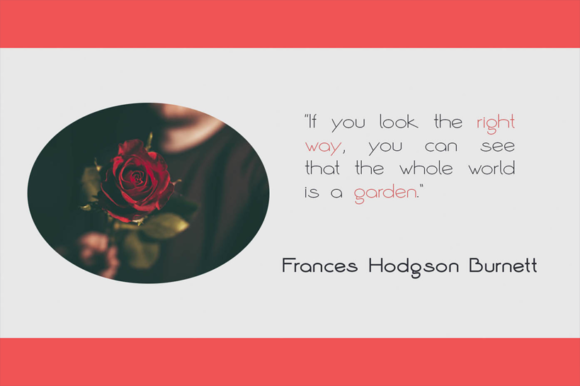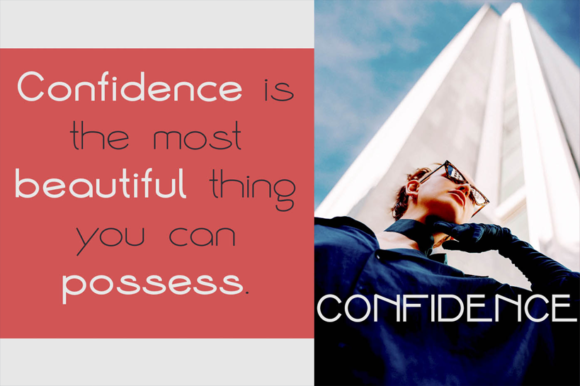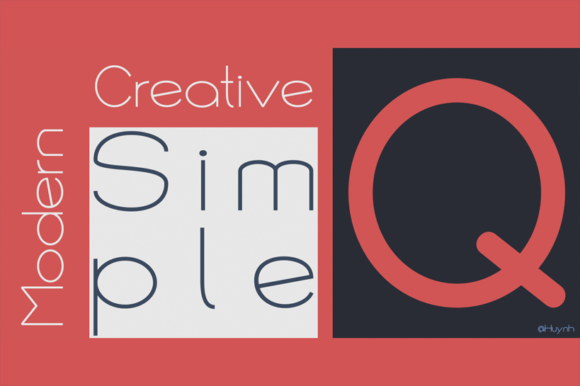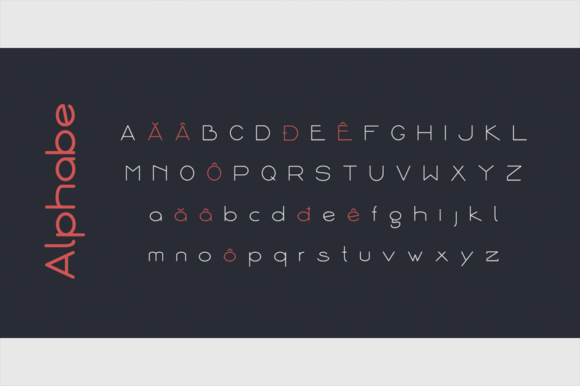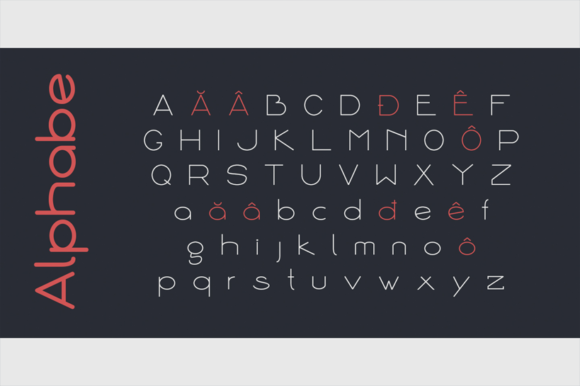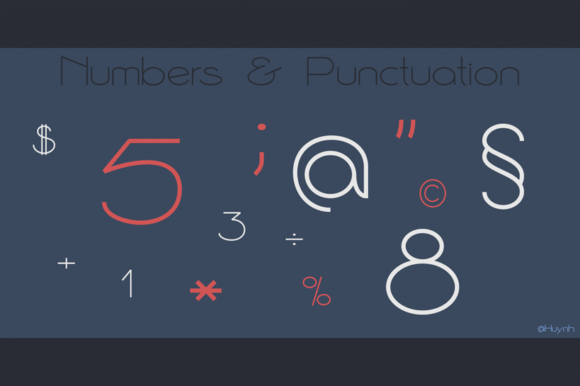
Introduction to Ovalime Font
Have you ever been in the middle of a creative project, staring at a blank page, and suddenly you stumble upon the perfect design element that brings everything together? For designers, finding the right font can be the difference between a mediocre design and a truly stunning one. That’s why we’re excited to introduce you to the Ovalime Font, a modern and simple sans serif font that’s about to become your new go-to design resource.
The Ovalime Font is a high-quality design element that can be easily matched to an incredibly large set of projects. Whether you’re working on a digital design project with a transparent background or creating a print material, Ovalime Font is the perfect addition to make your design stand out. And the best part? It’s available for free download, making it an invaluable asset for designers of all levels.
Ovalime Font
- Unique, creative design for various projects, including logos, icons, and graphics.
- Comes with a transparent background, making it easy to integrate into different design elements.
- Includes a comprehensive character set, covering Latin and Cyrillic alphabets, as well as punctuation and symbols.
- Perfect for designers and artists looking for a versatile and stylish design resource for their creative projects.
Honest Review: Ovalime Font
I recently stumbled upon the Ovalime Font while working on a creative project that required a unique and eye-catching typography. As a designer, I’m always on the lookout for high-quality design resources that can elevate my work. The Ovalime Font is a free download that has quickly become one of my go-to fonts.
- ✨ Unique and modern design aesthetic that adds a touch of sophistication to any creative project.
- ✨ Supports both light and dark modes, making it versatile for a variety of design applications.
- ✨ Works well with transparent backgrounds, allowing for seamless integration into designs that require a subtle touch.
However, I do have a few reservations about the Ovalime Font:
- Limitations:
- ⚠️ Limited character set, which may not be suitable for projects that require extensive typing.
Overall, the Ovalime Font is a solid addition to any designer’s toolkit. While it may not be perfect, its unique design and versatility make it a valuable resource for any creative project. I’d definitely recommend giving it a try, especially for those working on projects that require a modern and sophisticated touch.
Ovalime Font
The Ovalime Font is a high-quality, free design resource perfect for any creative project. Its transparent background makes it easy to incorporate into various designs.
Tips for Getting the Most Out of Ovalime Font
Use Ovalime Font to create eye-catching headings and titles, or use it in combination with other design elements to add texture and interest to your design.
Ovalime Font is perfect for a variety of design projects, including logos, brochures, and social media graphics. Its transparent background makes it easy to use in combination with other design elements.